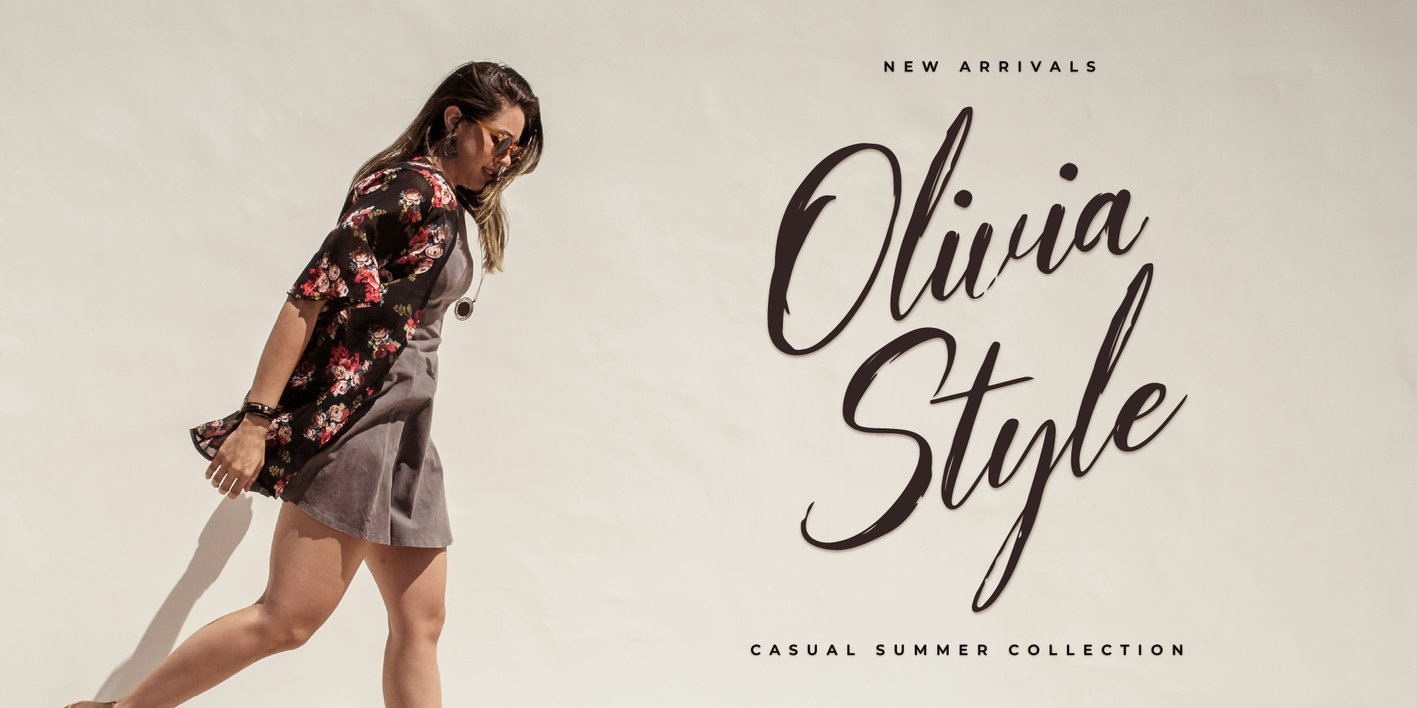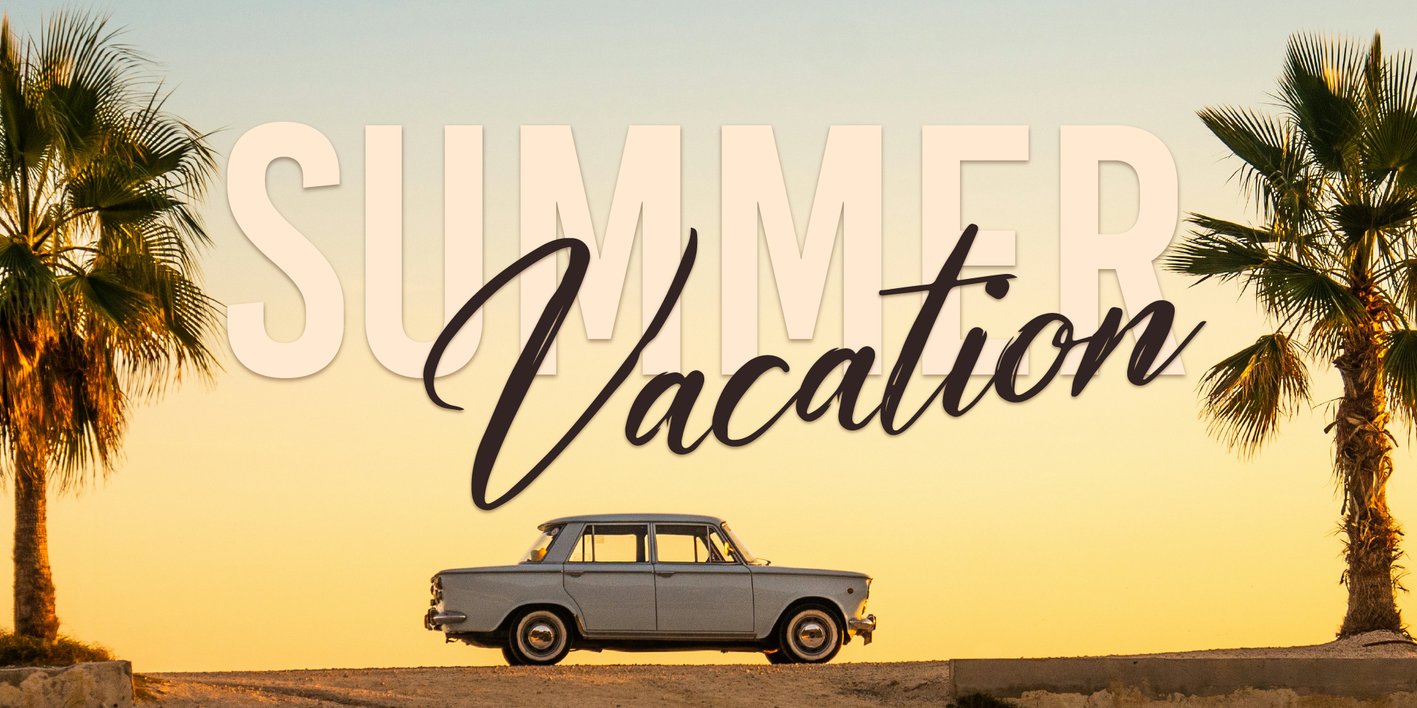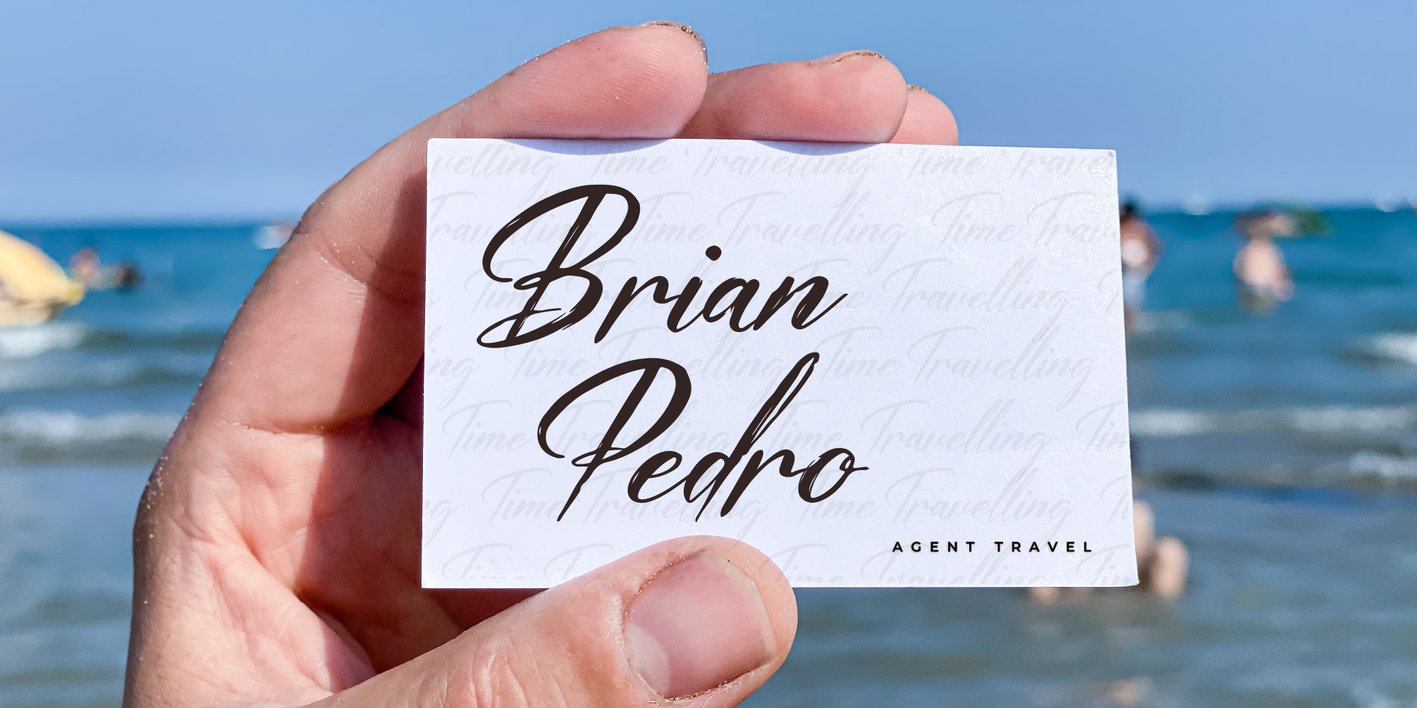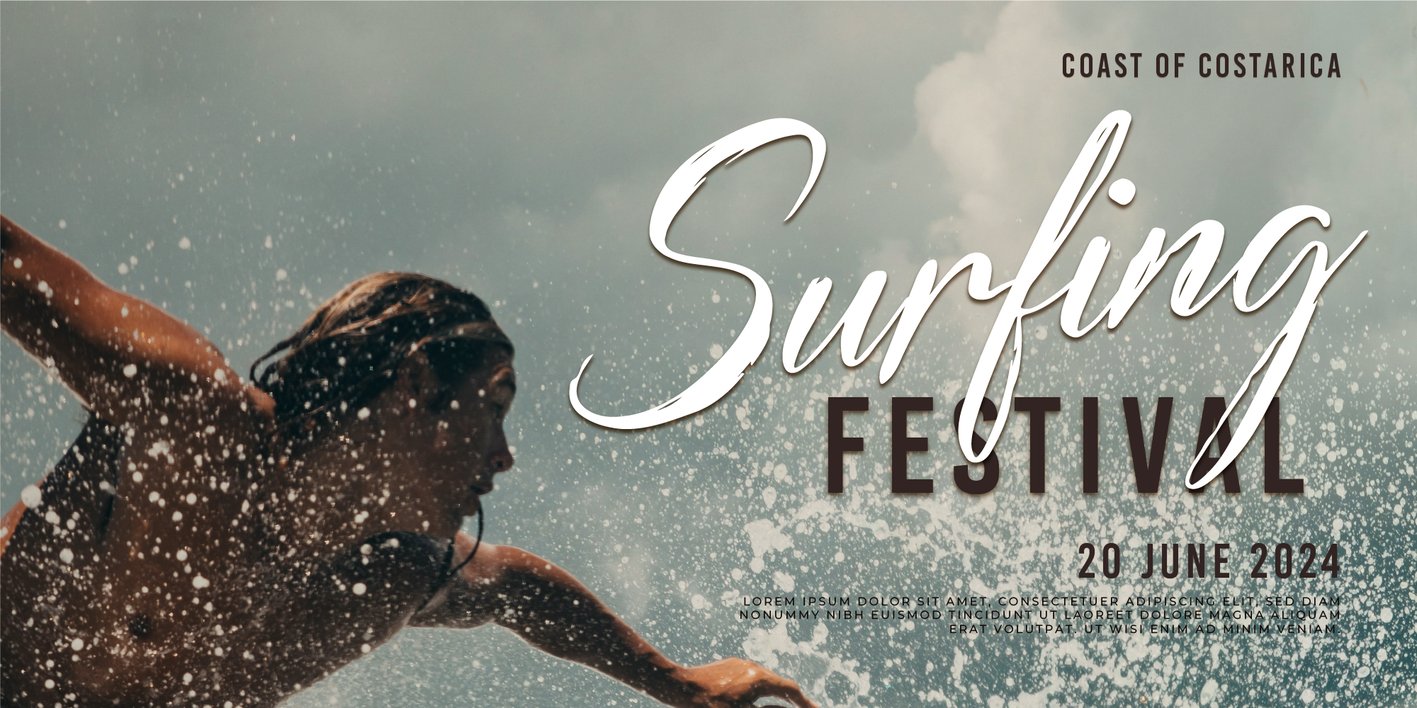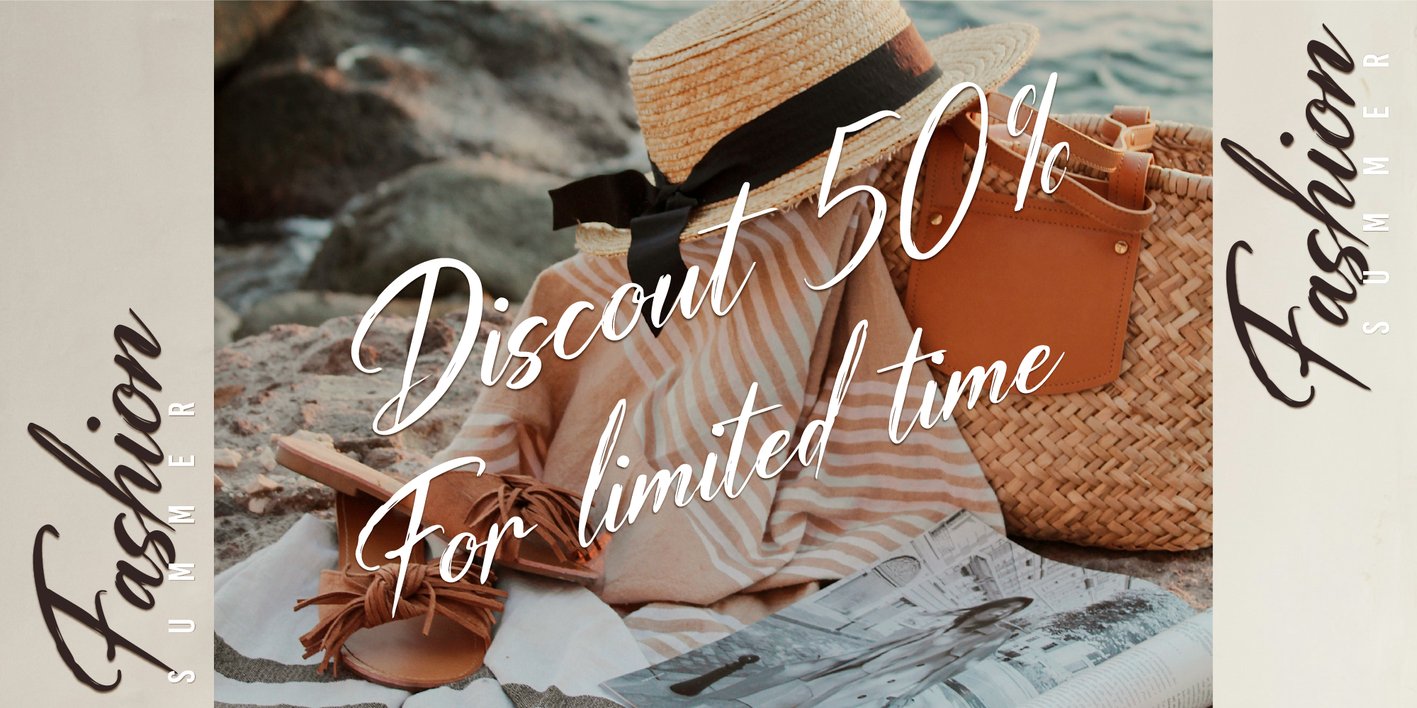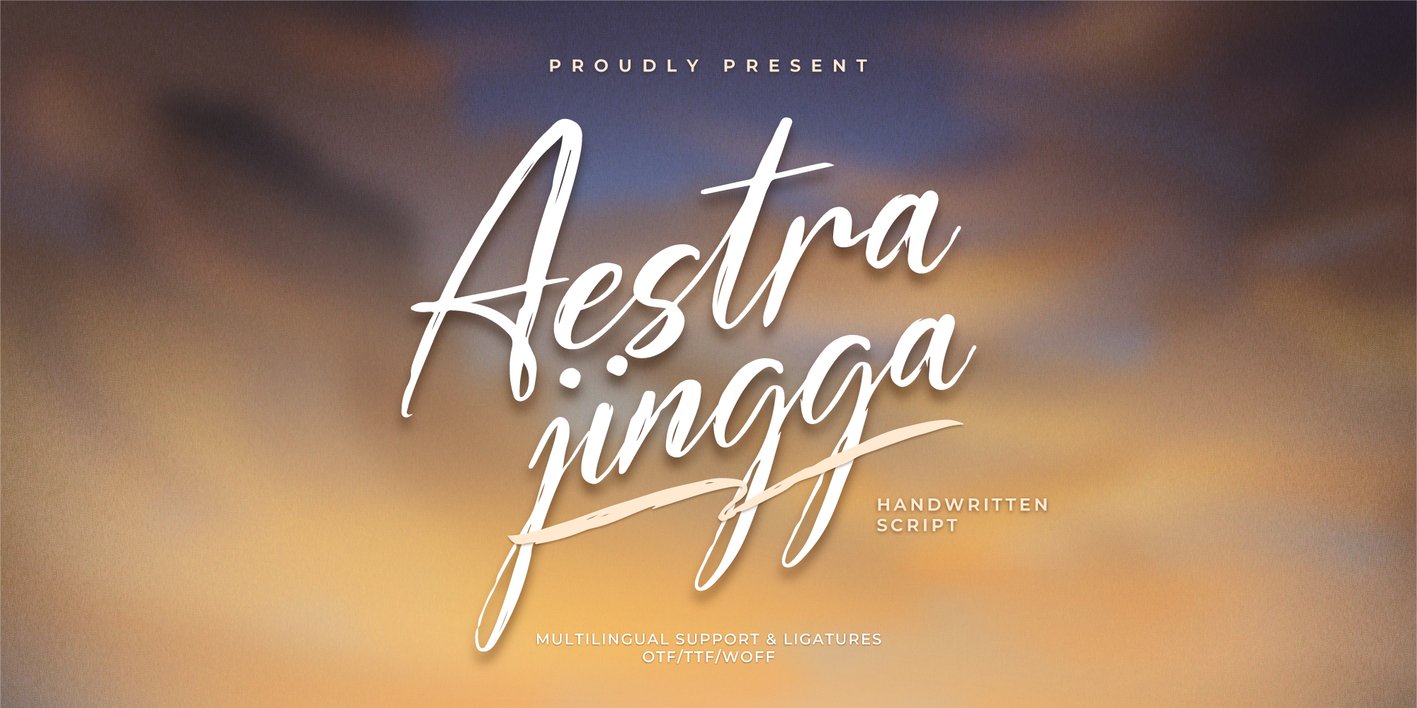
Aestra Jingga Font
Aestra Jingga | Handwritten Script, from Gracetypestudio, suitable for any projects such as: logos, branding projects, homeware designs, product packaging, mugs, quotes, posters, shopping bags, t-shirts, book covers, name card, invitation cards, greeting cards, label, photography, watermark, special events, and all your other lovely projects that need a beautiful script taste.